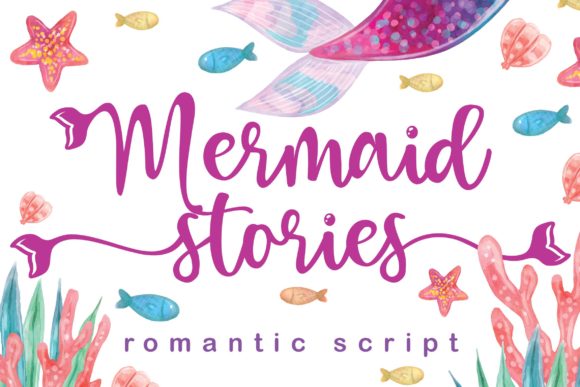
Introducing Mermaid Stories Font, the perfect script font for all your creative needs! Created by fontherapy, this beautiful handwritten font will capture your heart with its authentic feel and stunning mermaid swashes.
With Mermaid Stories, you can elevate your designs and create a truly captivating experience. Whether you're designing logos, crafting beautiful stationary art, or sharing eye-catching social media posts, this font is sure to make a lasting impression.
What sets Mermaid Stories apart is its extensive range of special features. This font is PUA encoded, making it incredibly easy to access all the amazing glyphs and swashes. Get ready to unleash your creativity and experiment with alternate glyphs and ligatures, adding a unique touch to your designs.
Imagine the endless possibilities this font offers for your projects. Its delicate and whimsical strokes will transport your audience to a magical underwater world, where creativity knows no bounds.
Not only is Mermaid Stories visually stunning, but it also delivers on functionality. Its keyword-rich nature makes it the best font for Kindle books. Give your readers an immersive experience with this font, enhancing the storytelling and bringing your words to life.
But Mermaid Stories is not just for Kindle books. It's a font that speaks to the emotions and desires of your audience. It evokes a sense of enchantment, beauty, and elegance that will leave a lasting impression on anyone who encounters it.